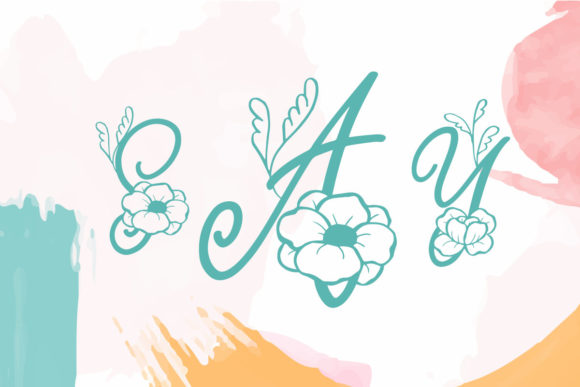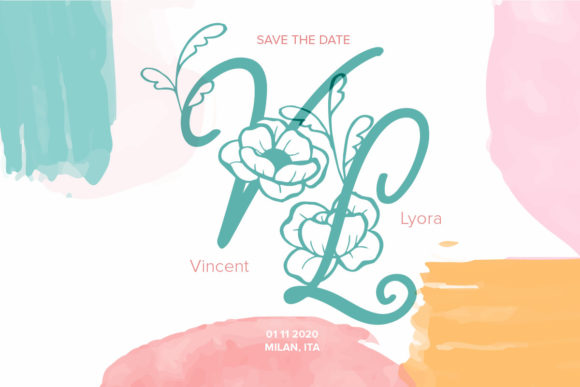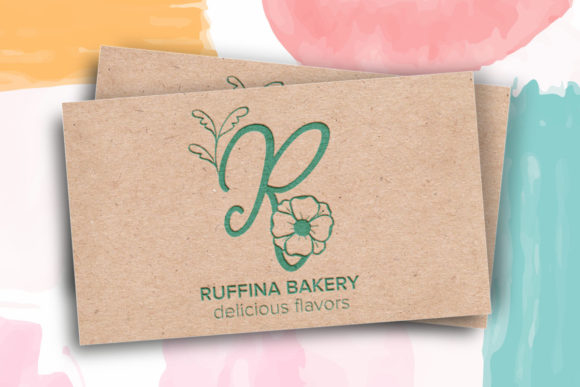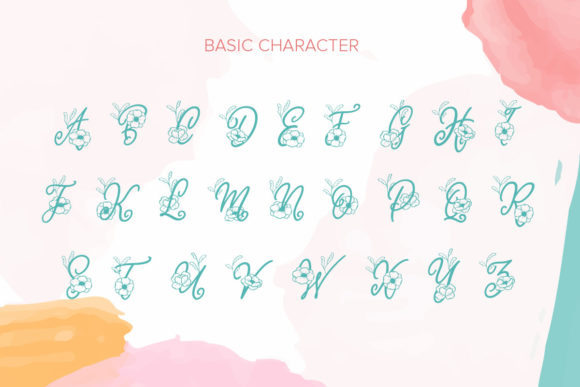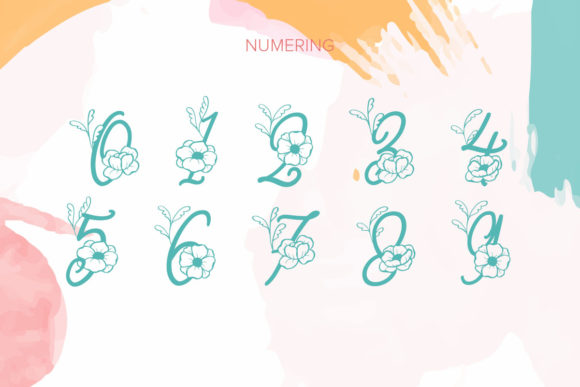
The Perfect Touch of Whimsy: Unlocking the Charm of Hayme Monogram Font
As a designer, have you ever been stuck in a creative rut, searching for that perfect font to elevate your project? I know I have. One day, while browsing through a collection of vintage-inspired fonts, I stumbled upon the Hayme Monogram Font. Its delicate flowers and intricate details immediately caught my eye, and I knew I had to learn more.
The Hayme Monogram Font is a beautiful decorative font designed to add an authentic touch to your designs. Whether you’re creating wedding invitations, stationery, social media posts, or greeting cards, this font is sure to bring a sense of elegance and whimsy to your work. For designers, the Hayme Monogram Font is a valuable tool, offering endless possibilities for creative expression and personalization.
Hayme Monogram Font Key Features
- Font Style: Script, Monogram Font
- Font Size: Supports various font sizes, scalable
- Resolution: Supports high-resolution designs, ideal for printing and digital use
- Unique Characteristics: Hand-drawn, elegant, and sophisticated design, perfect for creating personalized monograms and titles
- Language Support: Supports multiple languages, including Latin-based languages and Cyrillic
Honest Review of Hayme Monogram Font
Overall, I’m impressed with the Hayme Monogram Font. ✨ It’s got a unique, elegant feel to it that’s perfect for high-end branding and design projects. The font is well-designed, with a clear focus on sophistication and refinement. The use of subtle flourishes and ornaments adds a touch of whimsy without overpowering the overall aesthetic.
One of the standout features of Hayme Monogram Font is its versatility. ✨ It works equally well for digital and print applications, making it a great choice for designers who need a single font that can be used across multiple platforms. Additionally, the font’s script-like qualities make it perfect for invitations, wedding stationery, and other formal events.
Limits and Areas for Improvement
While Hayme Monogram Font is a great choice for many design projects, there are a few limitations to be aware of. ⚠️ For one, the font may be a bit too ornate for some designs, particularly those that require a more minimalist approach. Additionally, the font’s script-like qualities may not be suitable for all text-based applications, such as body copy or lengthy blocks of text.
Conclusion
Overall, I’d highly recommend the Hayme Monogram Font for designers looking to add a touch of elegance and sophistication to their projects. While it may not be the best choice for every design, its unique qualities and versatility make it a valuable addition to any designer’s toolkit.
- Unique, elegant feel
- Perfect for high-end branding and design projects
- Works well for digital and print applications
- Script-like qualities make it perfect for invitations and formal events
- May be too ornate for minimalist designs
- Not suitable for all text-based applications
For best results, use the Hayme Monogram Font in designs where a unique, elegant, and vintage feel is desired.
2. Branding and logo designs.
3. Luxury product packaging and labels.
4. Fine art and calligraphy projects.